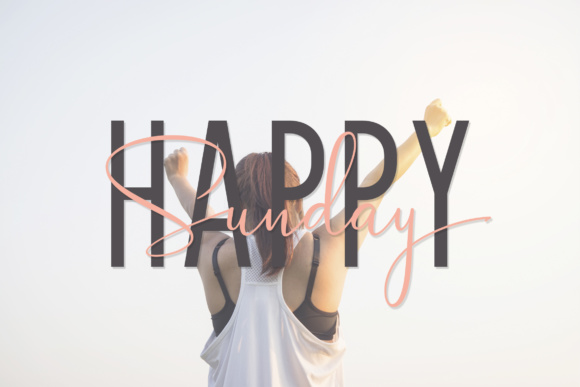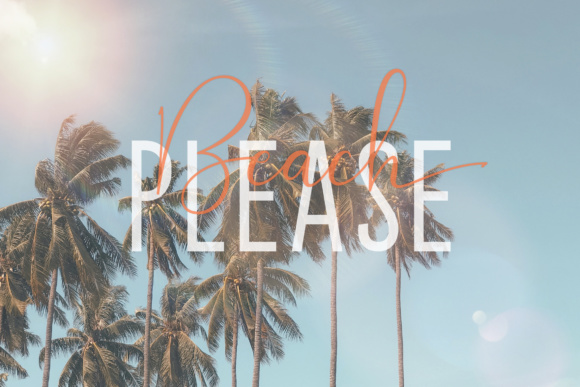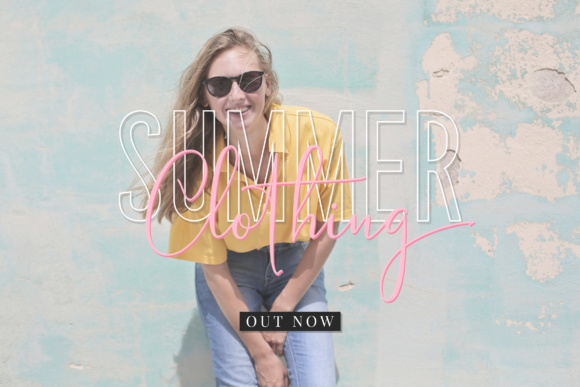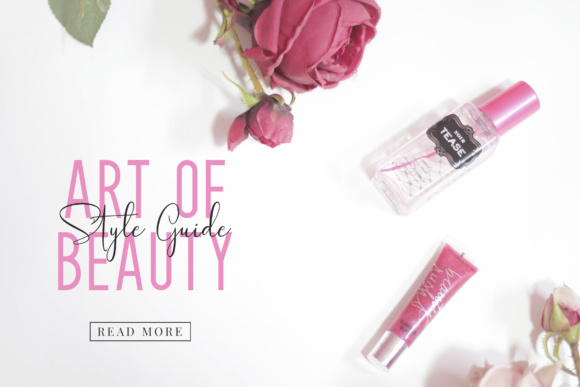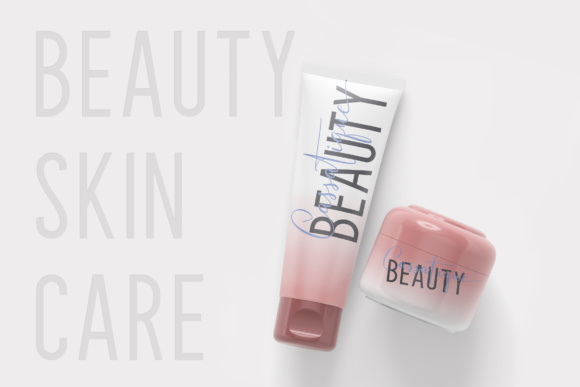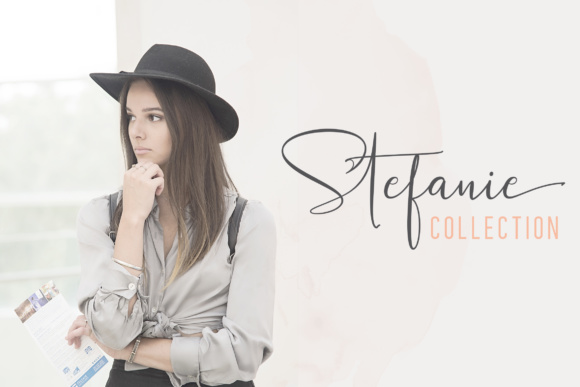
Introduction to Raisa Lovers Duo Font
As a designer, have you ever found yourself stuck on a creative project, searching for the perfect font to bring your vision to life? The struggle is real, but what if I told you that the solution lies in the elegant and sophisticated Raisa Lovers Duo Font? This stunning font duo has been making waves in the design community, and for good reason.
With its natural writing technique and beautiful, high-quality design, the Raisa Lovers Duo Font is the perfect addition to any creative project. Whether you’re working on a product branding campaign, a fashion magazine, or a wedding invitation, this versatile font is sure to elevate your design to the next level. And the best part? It’s available for free download, making it an invaluable design resource for designers of all levels.
So, what makes the Raisa Lovers Duo Font so special? Not only does it come in two beautiful variations – script and sans capital – but it can also be used with a transparent background, giving you endless possibilities for creative expression. Whether you’re a seasoned pro or just starting out, this font duo is sure to become a staple in your design arsenal.
Key Features of Raisa Lovers Duo Font
- Unique Design:** Raisa Lovers Duo Font offers a distinctive, modern design perfect for creative projects, including digital art, graphic design, and typography.
- Transparent Background:** This font features a transparent background, allowing for seamless integration with various design elements and backgrounds.
- Design Resource:** This font is ideal for designers working on creative projects, including branding, advertising, and editorial content.
- Resolution and Size:** The font is designed for use at various resolutions (up to 300 DPI) and sizes, ensuring versatility and flexibility in different design applications.
Honest Review: Raisa Lovers Duo Font
I recently came across the Raisa Lovers Duo Font and I must say, I was impressed. As a designer, I’m always on the lookout for high-quality design resources that can elevate my creative projects.
One of the standout features of this font is its versatility. It comes in two styles, each with its own unique flair, making it perfect for a variety of projects. Whether you’re working on a romantic design or a fun, playful project, Raisa Lovers Duo Font has got you covered.
- ✨ High-quality design with a clear and transparent background
- ✨ Two styles to choose from, offering flexibility for different creative projects
- ⚠️ Limited customization options, may not be suitable for complex design projects
- ⚠️ May not be as effective for designs that require a bold, sans-serif font
Overall, I’m impressed with the Raisa Lovers Duo Font. While it may have some limitations, its versatility and high-quality design make it a valuable addition to any designer’s toolkit. I’d definitely recommend it for any creative project that requires a touch of elegance and romance.
Tips for Getting the Most Out of Raisa Lovers Duo Font
Use the Raisa Lovers Duo Font with a high-quality image or design element to create a visually appealing effect. Experiment with different font sizes and colors to add depth and interest to your design.
The Raisa Lovers Duo Font is perfect for any creative project that requires a high-quality, free download font with a transparent background. Some common use cases include:
Is the Raisa Lovers Duo Font a design resource that’s easy to use?
Yes, the Raisa Lovers Duo Font is designed to be easy to use and comes with a comprehensive character set that includes a wide range of glyphs and ligatures. It’s a great design resource for designers who want to add a unique touch to their creative projects.